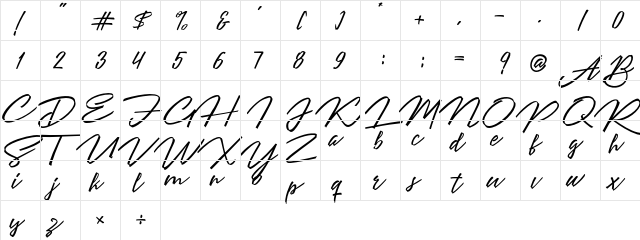
Angelines Script Regular
| Foundry | Cotbada Studio |
| Designer | Cotbada Studio |
Design Context for Angelines Script Typeface
Angelines Script flows with the natural rhythm of handwritten lettering, making it ideal for designs that call for warmth and personal expression.
Font Pairing: Combine Angelines Script with a simple geometric sans for maximum contrast — the tension between flowing curves and clean structure is a classic typographic pairing.
Pro Tip: Pair Angelines Script with a clean sans-serif for supporting text. The contrast between fluid script and geometric structure creates an elegant typographic hierarchy.